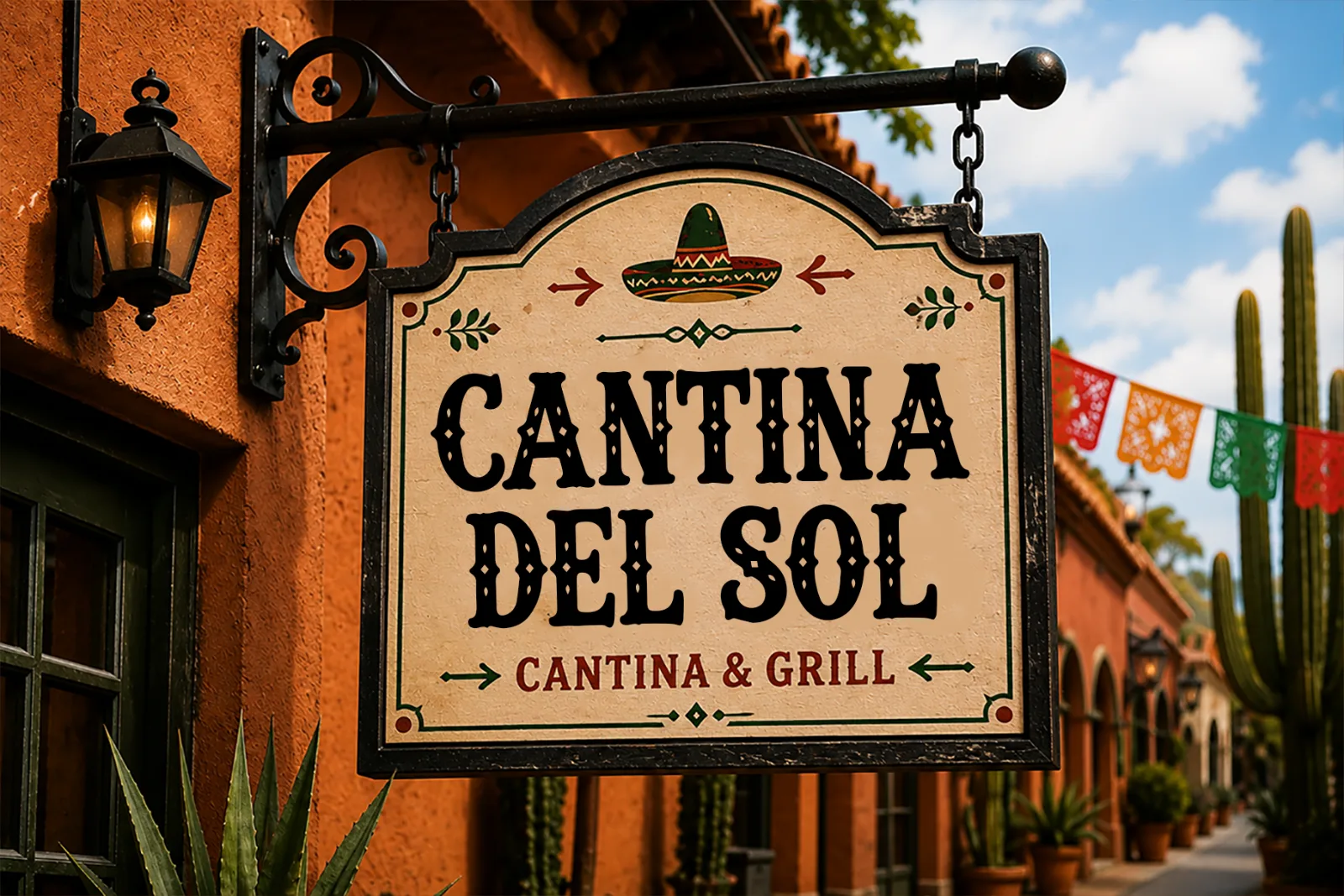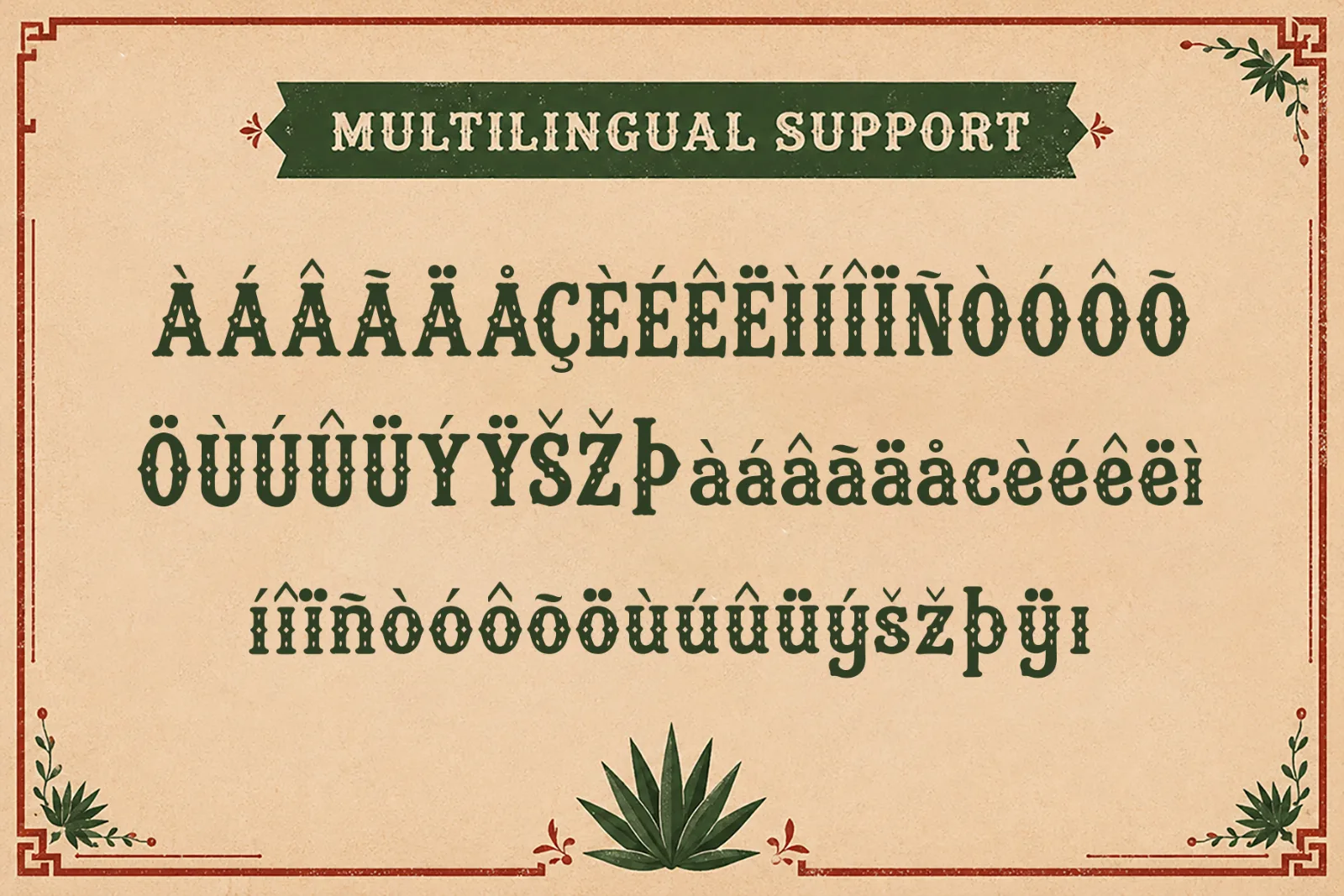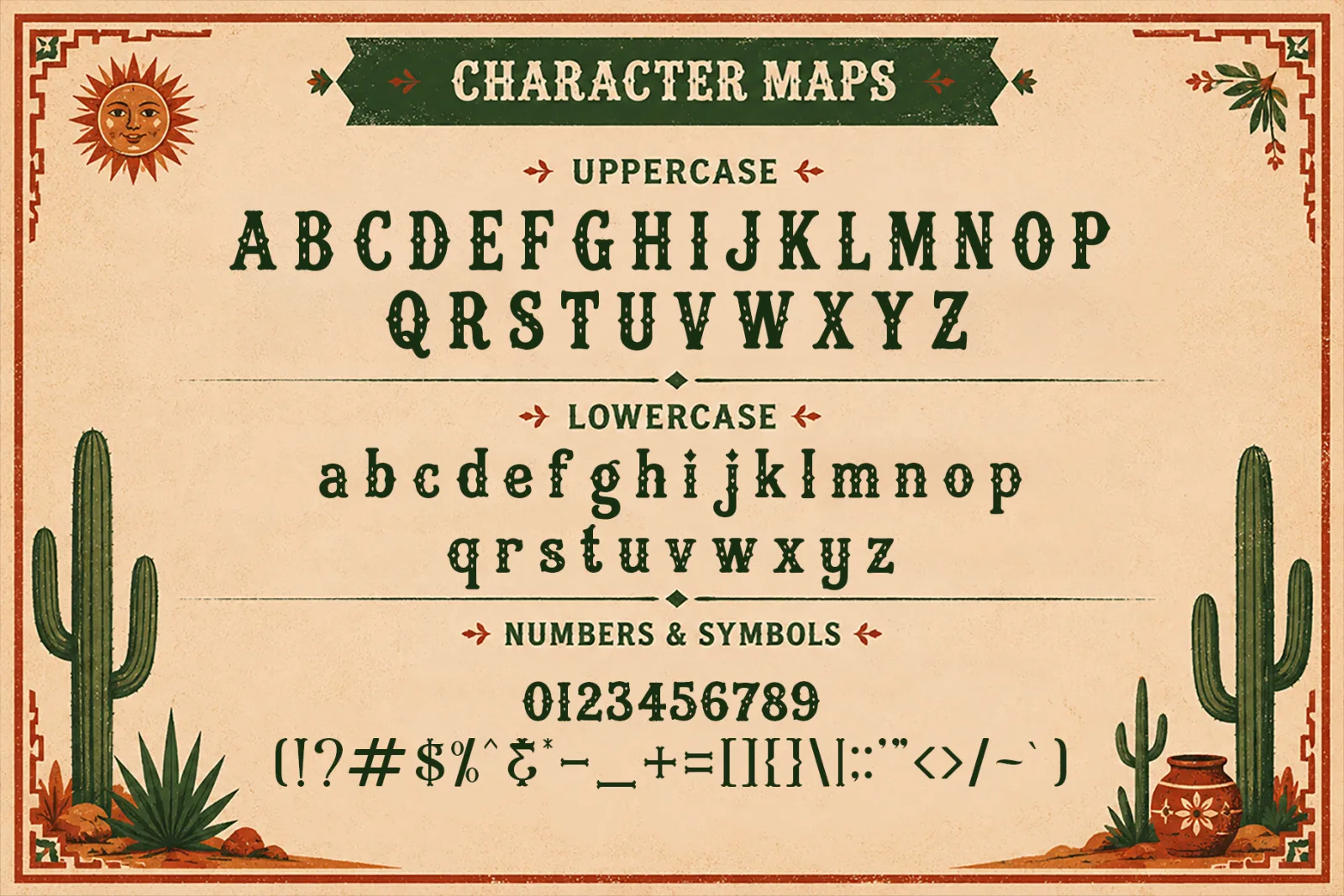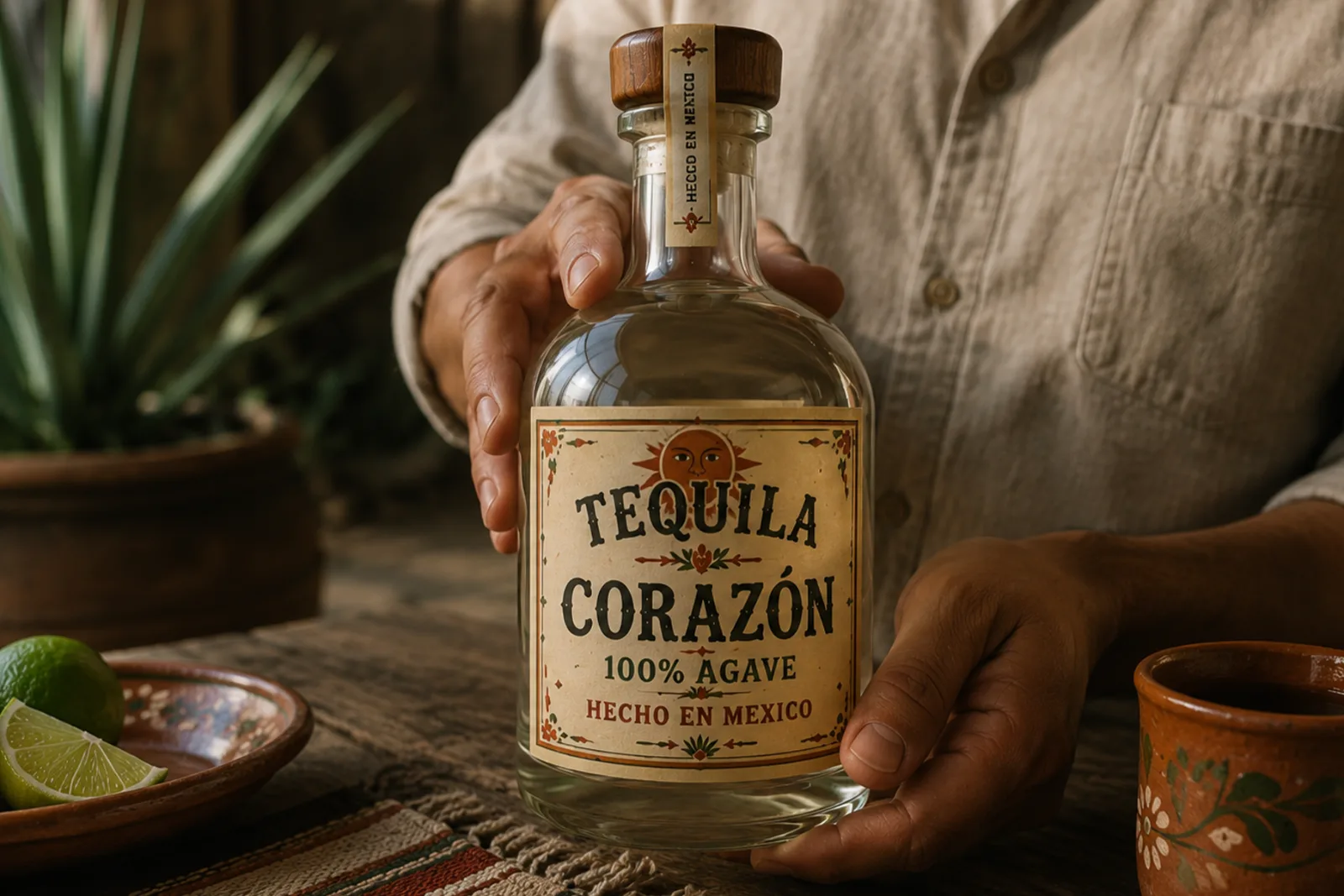
Fiesta Mexico – Mexican Inspired Display Font
Fiesta Mexico is a bold decorative display font inspired by Mexican visual culture, vintage fiesta posters, desert landscapes, and western-style typography. Its distinctive letterforms, ornamental details, and strong personality bring a festive and memorable look to any creative project.
Designed for high-impact typography, Fiesta Mexico works beautifully for posters, restaurant branding, food packaging, event graphics, merchandise, labels, and other designs that need a warm, handcrafted, and celebratory character.
Perfect for:
- Mexican-Inspired Branding
- Restaurant & Food Packaging
- Fiesta Posters
- Event Graphics
- Logos & Headlines
- Western-Themed Designs
- T-Shirts & Merchandise
- Labels & Stickers
- Café & Bar Branding
- Travel Posters
- Album Covers
- Social Media Graphics